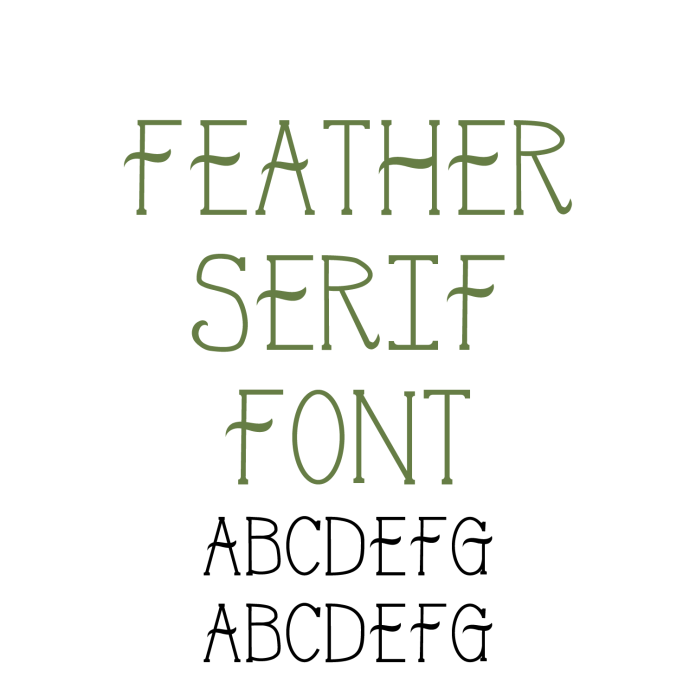
Introducing Feather Serif Font – a playful handwritten serif font that combines whimsy with charm, perfect for all your creative crafting needs! With its light, bouncy strokes and friendly serif details, Feather Serif adds a cheerful touch to greeting cards, classroom decor, labels, stickers, quotes, scrapbooking, and kids’ projects. The fun, handcrafted style makes it ideal for designs that need personality while remaining easy to read. This font cuts smoothly with vinyl, HTV, cardstock, and other materials, making it a great choice for both beginners and experienced crafters. Add warmth and playfulness to your designs with Feather Serif Font today!